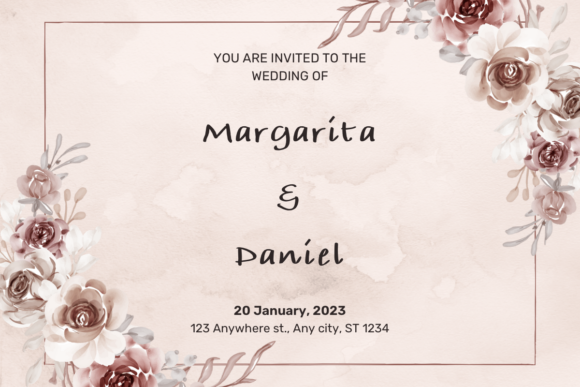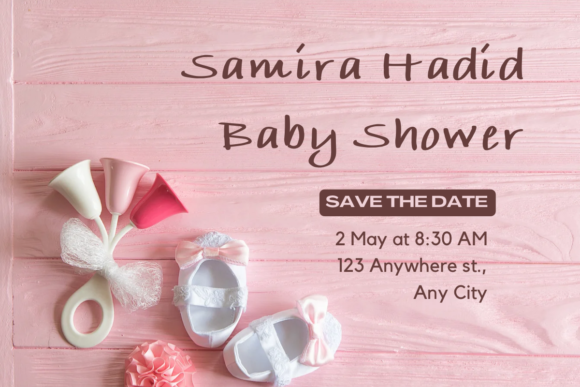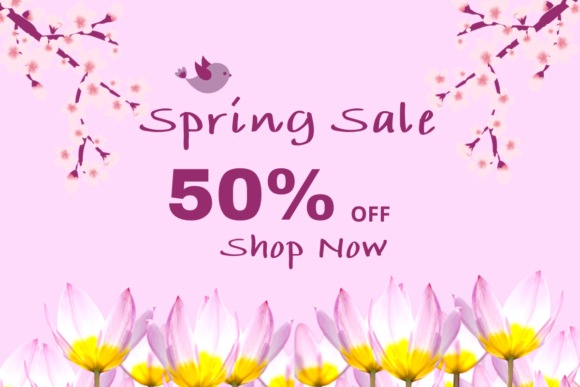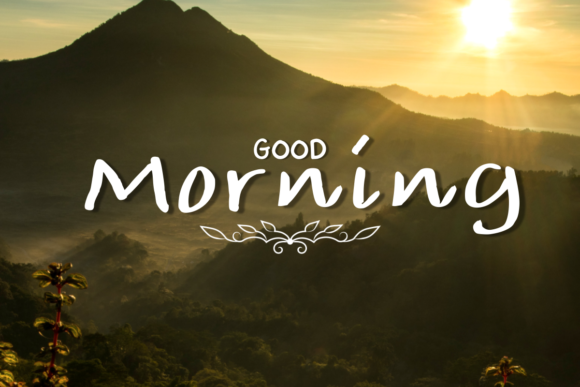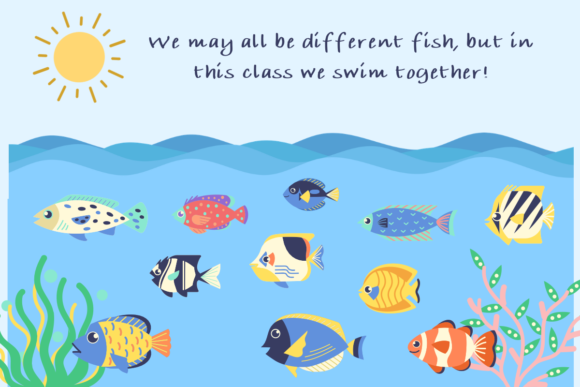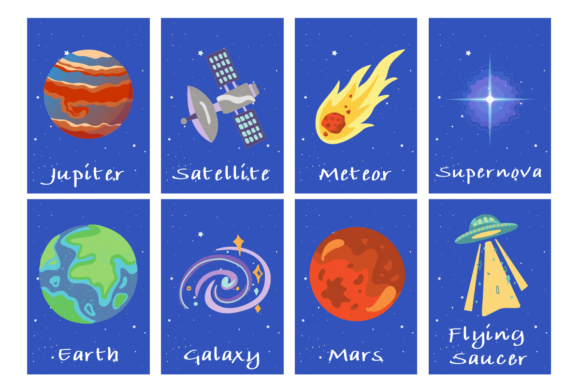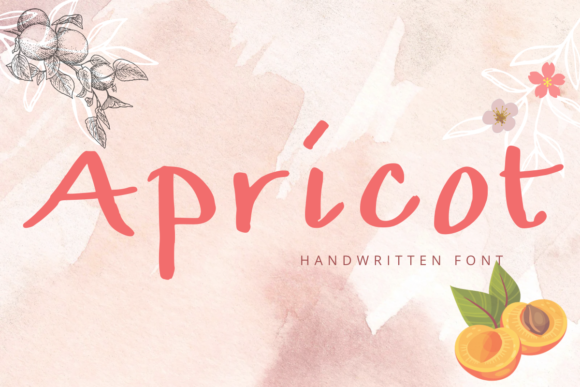
Unleash Your Creativity with the Apricot Font
You know that moment when a design idea pops into your head and you just can’t wait to bring it to life? The excitement, the anticipation, and the desire to make it truly special – that’s what makes being a designer so magical. And what’s even more magical is finding the perfect tool to help you turn your vision into a reality. Enter the Apricot Font, a fun and friendly handwritten font that’s sure to make your designs stand out from the crowd.
This delightful font is not just a pretty face – it’s a powerful tool that can elevate your designs and make them truly unforgettable. Whether you’re working on a branding project, creating a social media campaign, or designing a product label, the Apricot Font is the perfect addition to your toolkit. Its unique charm and character will add a personal touch to your designs, making them truly special and memorable.
Apricot Font Key Features
- Font Style: Script, Calligraphy
- Unique Characteristics: Whimsical, elegant, and playful, making it ideal for creative projects and designs
Apricot Font Review
Apricot is a beautiful and elegant script font that shines ✨ with its unique blend of modern and vintage elements. Its flowing lines and subtle flair create a sense of sophistication, making it perfect for projects that require a touch of luxury.
The font comes in a variety of weights and styles, allowing designers to mix and match to achieve the desired look. I particularly love the way the bold weights ✨ add a sense of drama and emphasis, while the light weights ✨ provide a delicate and ethereal feel.
- ⚠️ The font may not be as readable in smaller sizes, due to the complexity of its design.
- ⚠️ Some users may find the font too ornate or distracting, particularly in projects with a lot of text.
- ⚠️ The font family is not as extensive as some other popular fonts, which may limit its versatility.
Overall, I think Apricot is a stunning font that is well-suited for high-end projects, such as branding, advertising, and editorial design. With its unique style and wide range of weights and styles, it’s a great addition to any designer’s toolkit. However, designers should be aware of its limitations and use it judiciously to achieve the best results.
The Apricot Font is ideal for creating eye-catching titles, headings, and quotes. It works well for both digital and print designs, such as logos, posters, and business cards. To get the most out of the font, use it in combination with bold colors and clean lines.